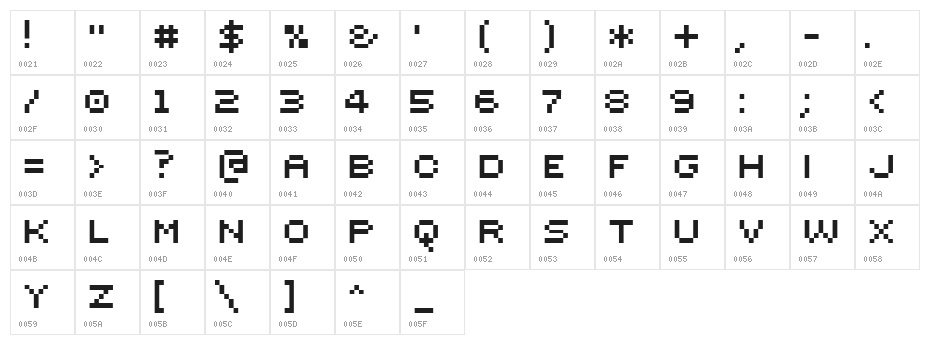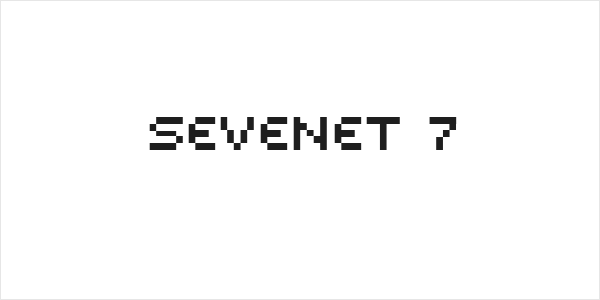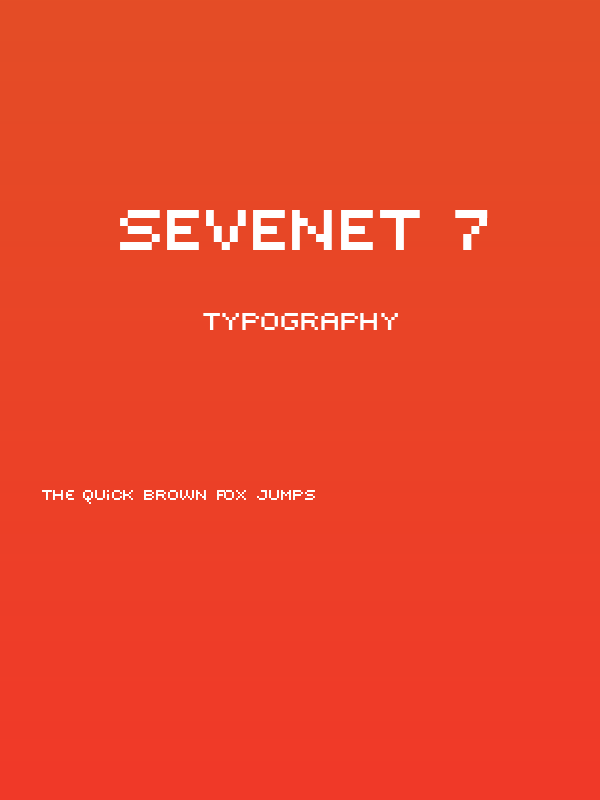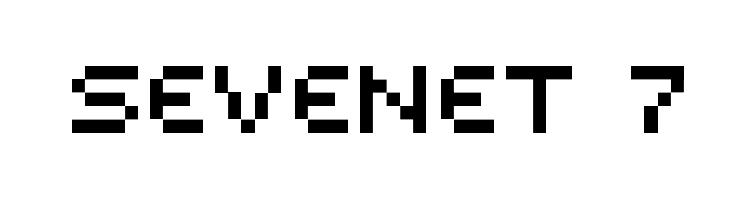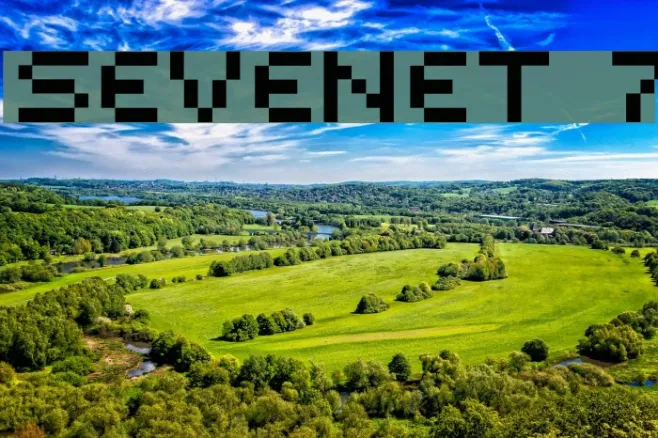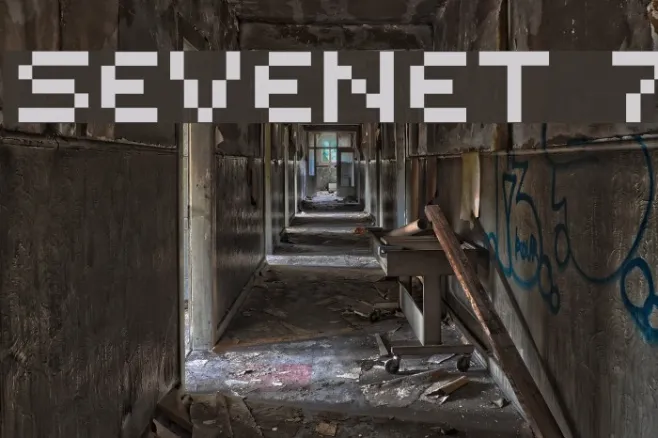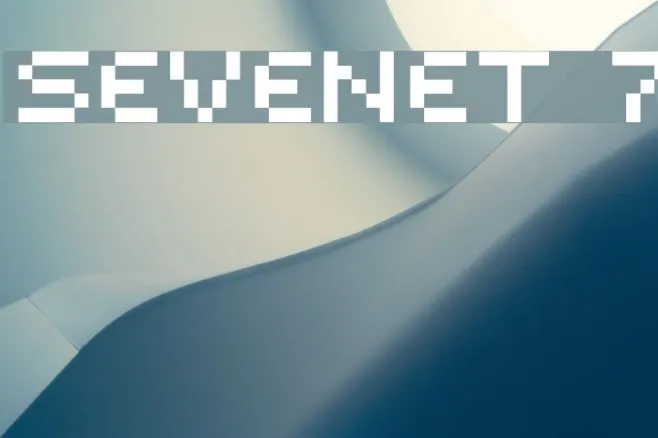
Sevenet 7 Font
Sevenet 7 Description
This font features a bold, pixelated design reminiscent of early digital displays and retro video games. Each character is constructed with a blocky, grid-like structure, giving it a distinctly digital and mechanical appearance. The uniformity in stroke width across all characters contributes to a cohesive and consistent look, while the sharp angles and straight lines emphasize its geometric nature. The font's uppercase and lowercase letters maintain a similar height, enhancing its compact and efficient style. Numbers and special characters follow the same pixelated pattern, ensuring visual harmony throughout. This font is ideal for projects that aim to evoke nostalgia for the early days of computing or to create a futuristic, tech-inspired aesthetic.